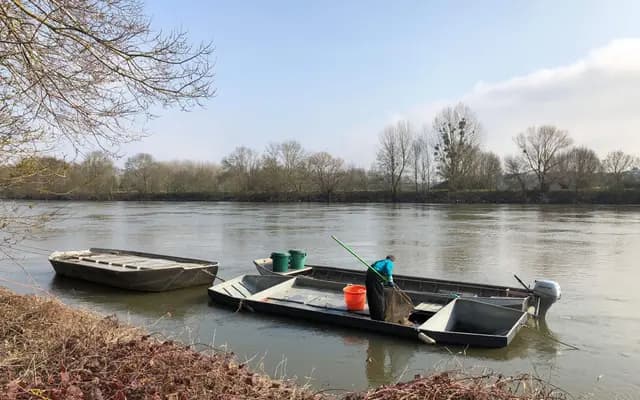
Anguille
Abyme · Christophe Jacquet dit Toffe · 2019
A video artwork sold as a typeface, made by filming live eels on the banks of the Loire in February 2019.
Christophe Jacquet dit Toffe filmed eels moving in a white container on the banks of the Loire, capturing their looping, shifting forms as a stand-in for cursive letterforms. The result is a 9-minute video file sold for £48 that functions as a typeface only in name and spirit, with no installable font data. The piece draws on eel mythology, Seamus Heaney, and the biological enigma of the European eel's life cycle to position typography as something living, transient and ultimately unresolvable.
Anguille defies conventional typographic classification: it is a video file documenting live eels filmed from above, presented as a typeface in concept only. It is categorised as display due to its purely artistic and non-functional nature.